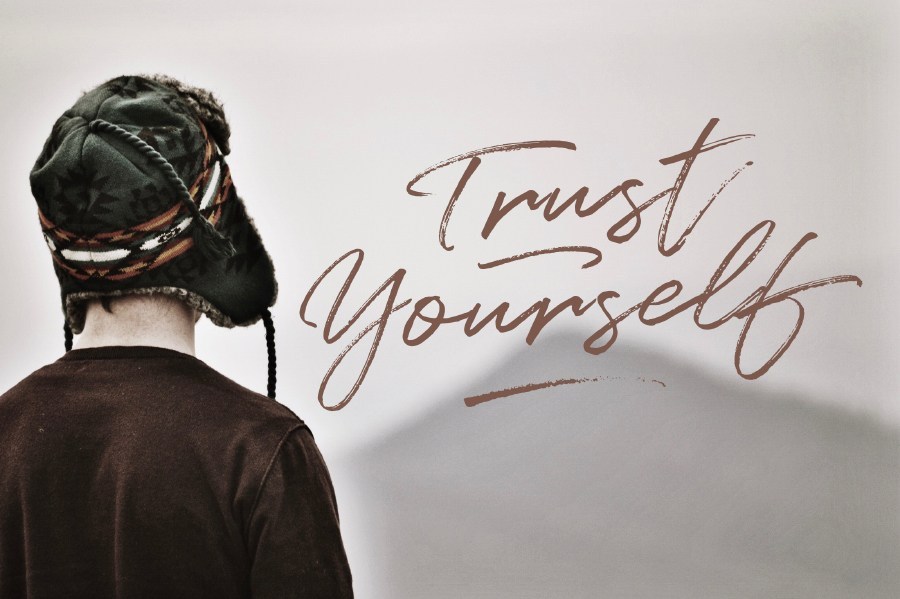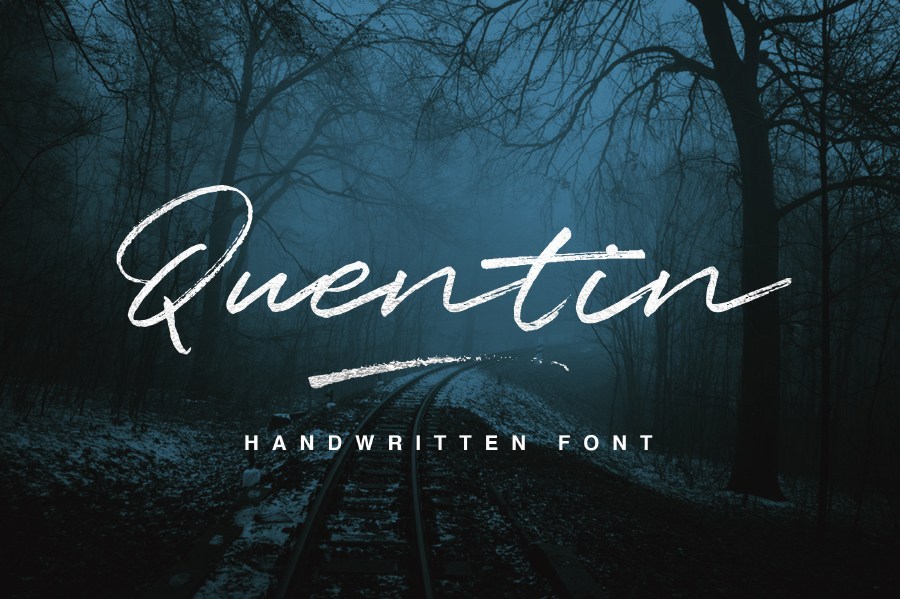
Quentin Script Font
Quentin Script Font falls under the category of the signature font. This is highly utilized in commercial use. Also famous for its text generation function. A well-known American content material cloth fabric writer took the all proper for this elegant typeface.
And he creates it for them makes the content material appearance stylish. He has taken the concept from thunderstorm font which becomes launched because of the fact. In this method, it in reality installation at the designs of the t-shirts printing. Quentin Script Font Free Now that you could furthermore be referred to as it the new edition of the nexa font.
On the identical time as you remember that now it has contained all of the historic elements with a specific facility. All of the letters which embody this cursive typeface characteristic top-notch based actually absolutely really in truth in fact in reality easy format. It is likewise known as the onyx typeface. Download In case you need to download it then that you may get from the font empire similar to frontage font in fact thruway of without issues clicking.